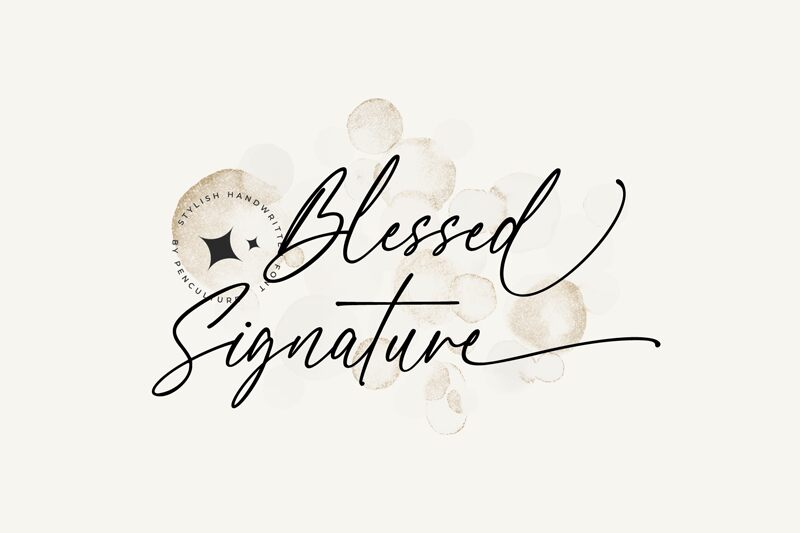
Presenting Blessed Signature Font, a stylish handwritten typeface designed by Pen Culture. With its lovely curves and extra-light weight, this font is ideal for a variety of projects.
Use it to add a touch of elegance to your branding materials, create stunning wedding invitations, or enhance the design of your website. Blessed Signature features a full set of uppercase and lowercase letters, as well as numbers and punctuation marks. Additionally, it offers 60 stylish ligatures and alternates for added versatility. Take advantage of the two types of ending swashes available in this font to make your designs more captivating.
Designed by Revo Farisky from Pen Culture in 2022